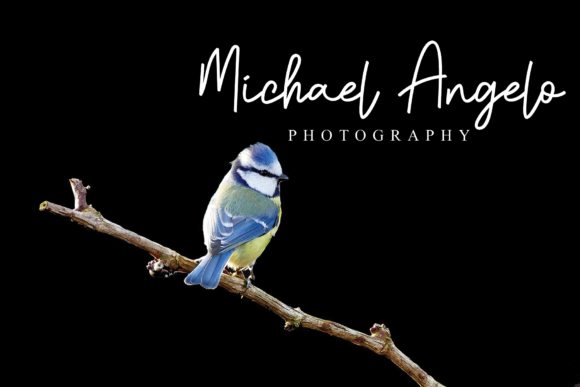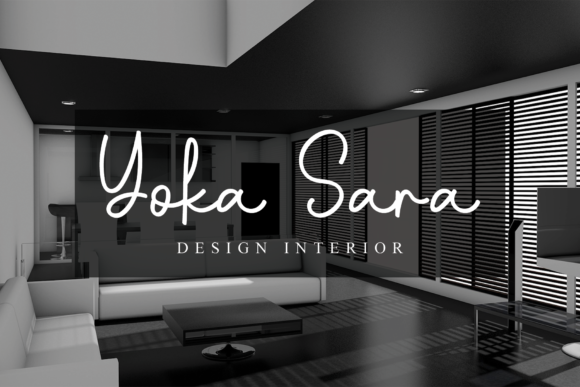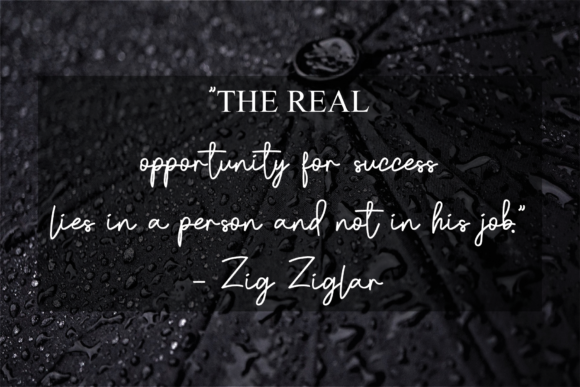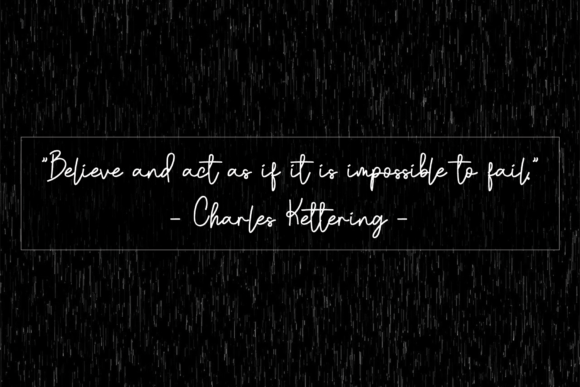
Black Jack Font
Black Jack is a thin and cursive handwritten font that adds a touch of elegance and charm to your craft designs. With its simplicity and versatility, this font can be seamlessly integrated into various creative projects.
The thinness of Black Jack creates a sense of delicacy and sophistication in your typographic compositions. Its fluid strokes and graceful curves contribute to a visually pleasing and refined aesthetic. Whether you’re working on scrapbooking, card-making, DIY projects, or any other craft design, Black Jack font enhances the overall visual appeal with its thin and cursive style.
Black Jack’s cursive handwriting adds a personal and authentic touch to your designs. Its flowing character and natural letterforms bring a sense of elegance and uniqueness, making your craft designs visually captivating and appealing.
Using Black Jack font allows you to mix and match it with various craft designs effortlessly. Its simplicity and readability make it easy to pair with other elements, adding a touch of sophistication and charm. This font complements a wide range of craft themes and styles, making it versatile for different projects.
Incorporating Black Jack into your craft designs enables you to create beautiful and cohesive compositions. Its thin and cursive handwritten font adds a touch of elegance and enhances the overall visual impact of your creations.
In summary, Black Jack is a thin and cursive handwritten font that brings elegance and charm to your craft designs. Its fluid strokes and graceful curves create a sense of delicacy and sophistication. Embrace the simplicity and versatility of Black Jack font and let it enhance your various craft designs, making them visually appealing and captivating.